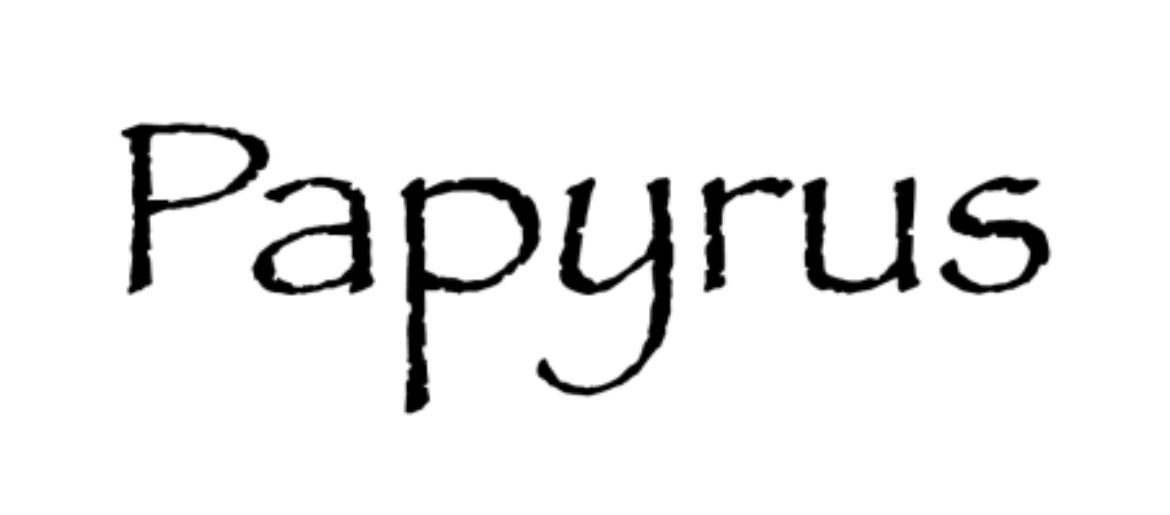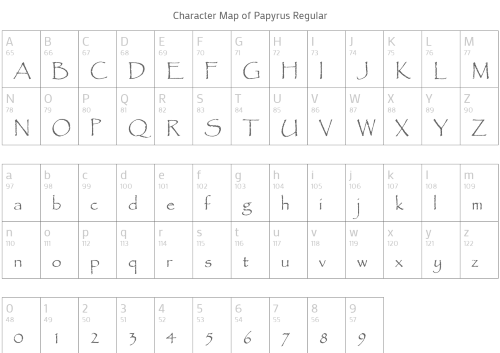
Papyrus Font
Papyrus Font is a decorative display typeface created in 1982 by American graphic designer Chris Costello. Known for its textured, ancient-style appearance, Papyrus is a commercial font but is included for free with many operating systems. Expanded versions, such as Papyrus Std, are available for purchase from the designer.
➤ Font Name: Papyrus
➤ Designer: Chris Costello
➤ Style: Decorative